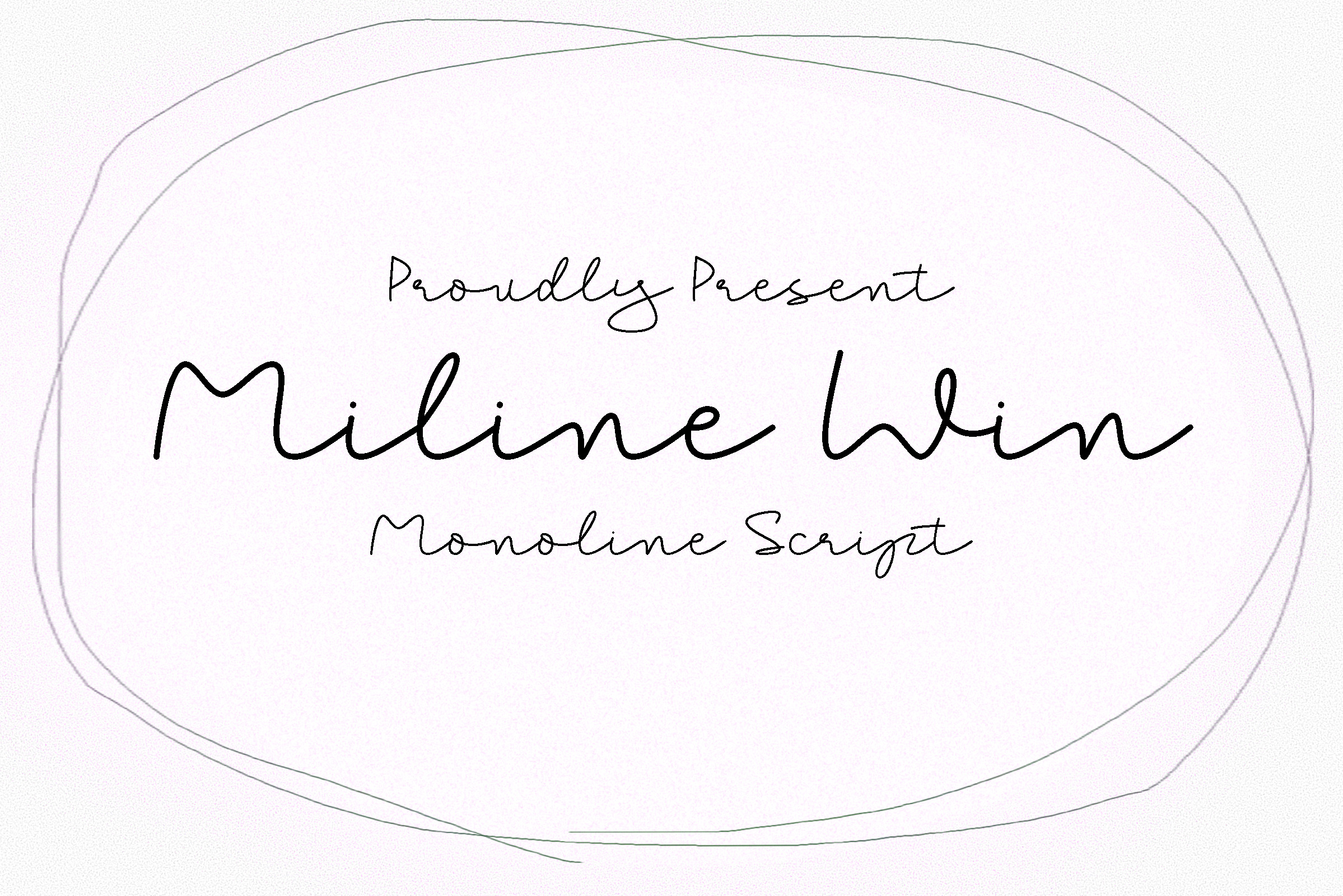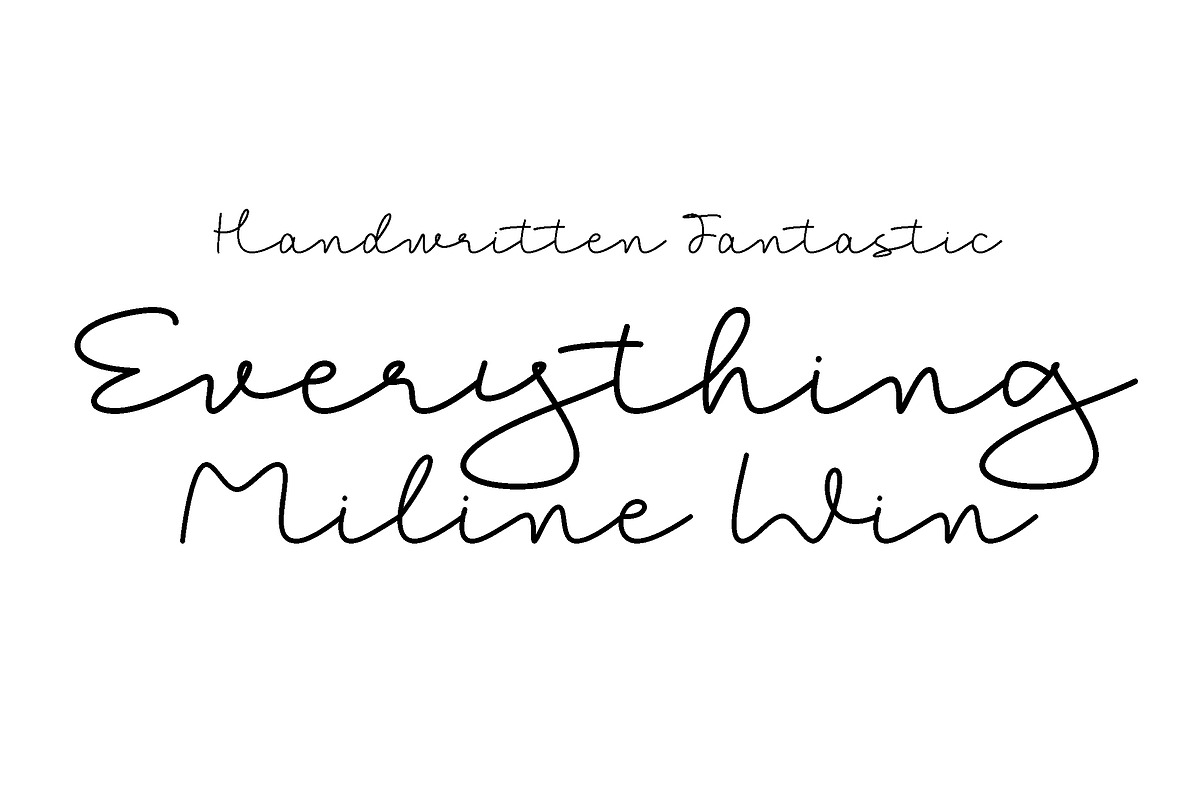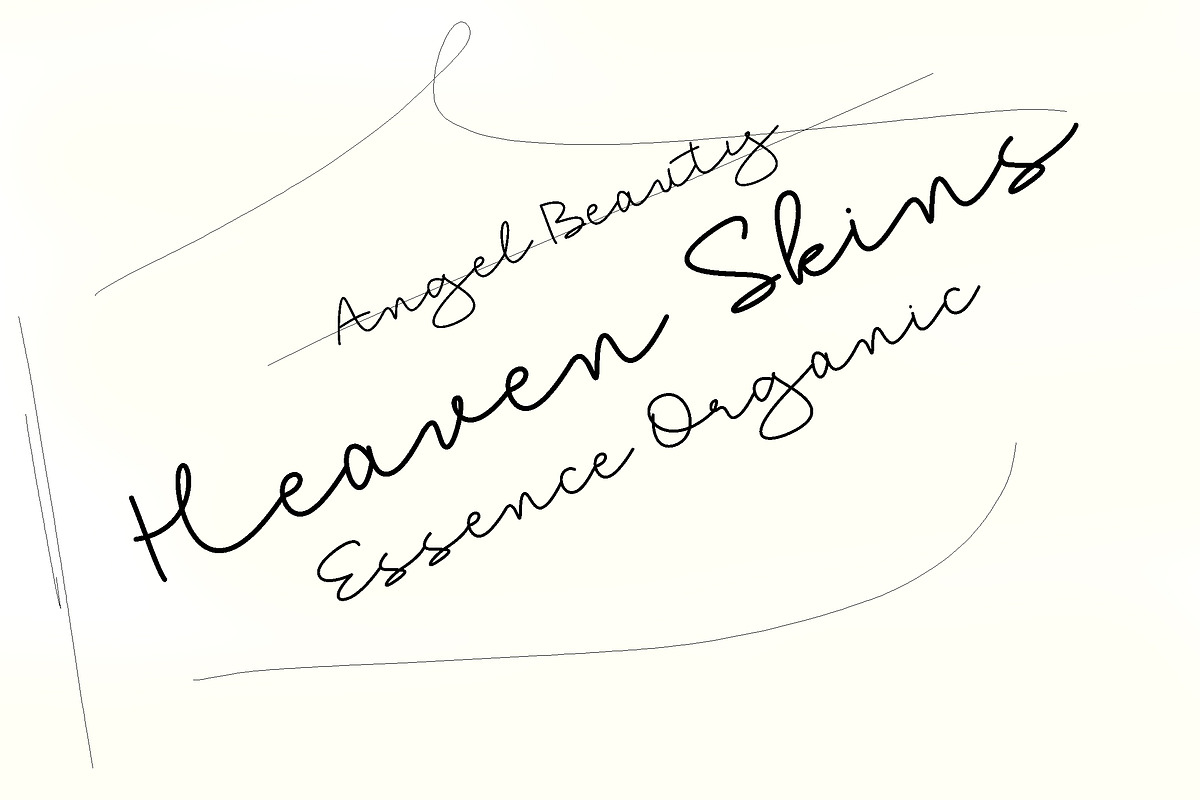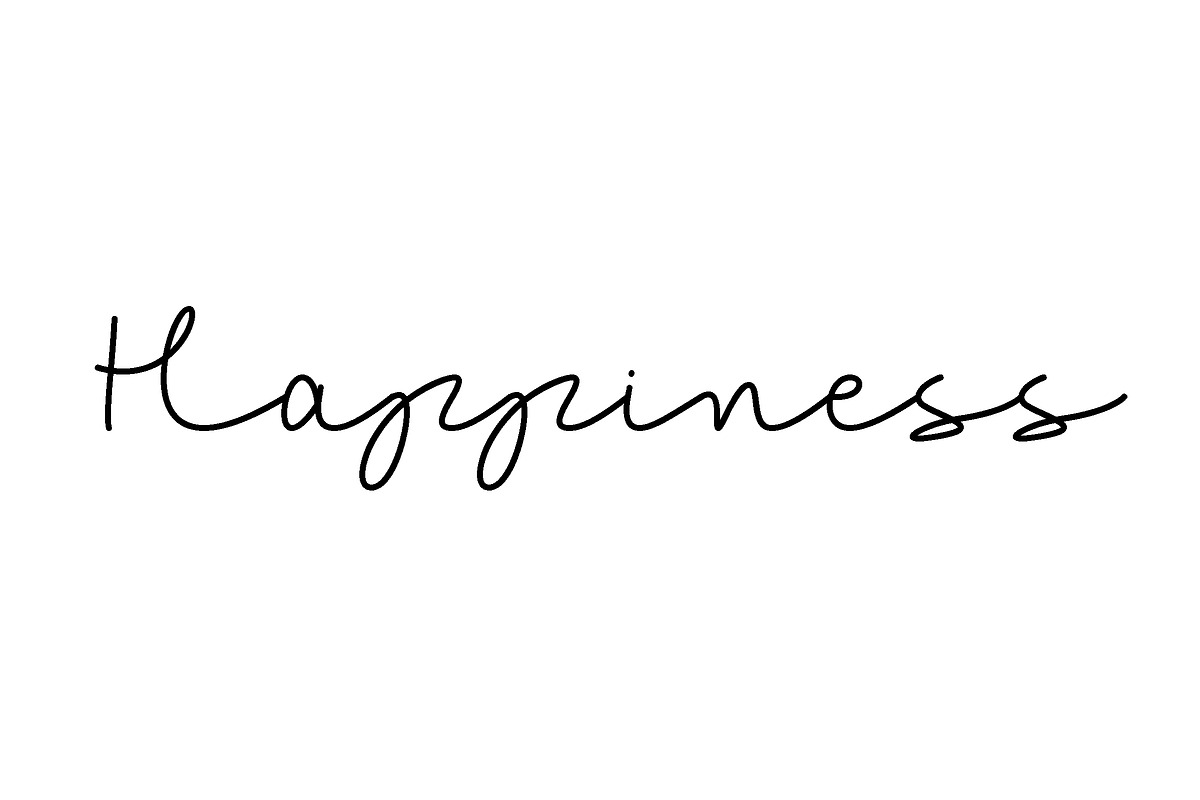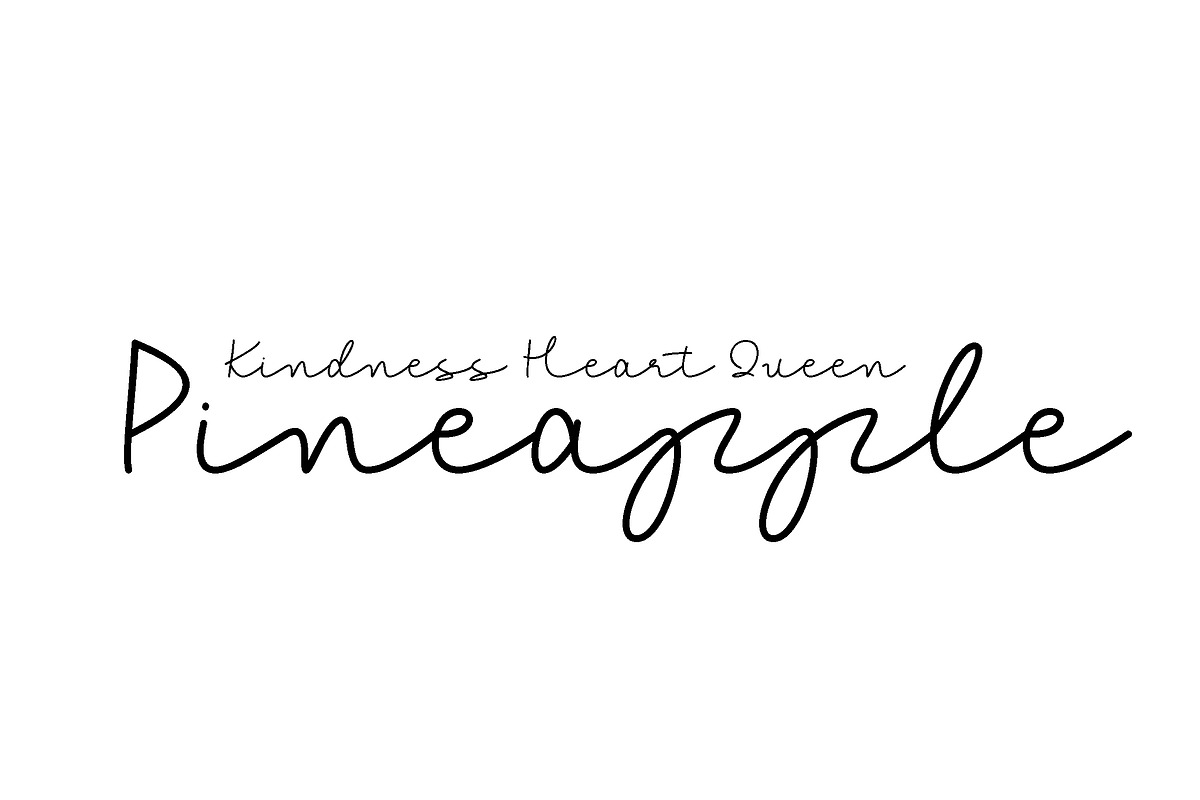
Miline Win - Monoline Script Font
Miline Win is a beautiful, monoline font that will add a ton of charm and style to your works. Includes automatic ligatures and stylistic alternates to make it look as a natural handwriting. This font is PUA encoded which means you can access all of the glyphs and alternates with ease! (please type the preview to see if I have what you need!)